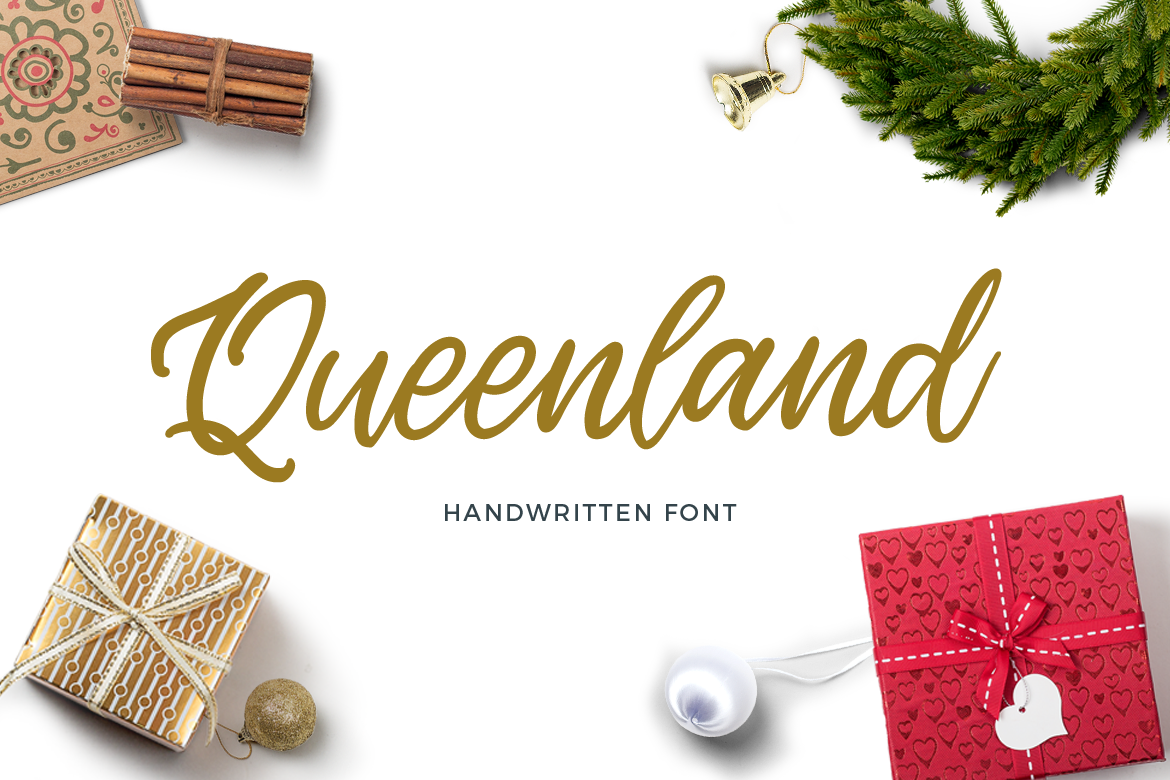
Queenland is a wonderful handwritten script fonts. Suitable for any design needs, modern invitation design, branding, stationery design, blog design, modern advertising design, invitation, Art Quote, Home decor, Book/Cover Title, Invitation, special events, birthday, custom mug, pillow, t-shirts, any brush lettering needs and more. Thank you for your purchase! and hope you’re having fun with “Queenland” ! Happy creating!